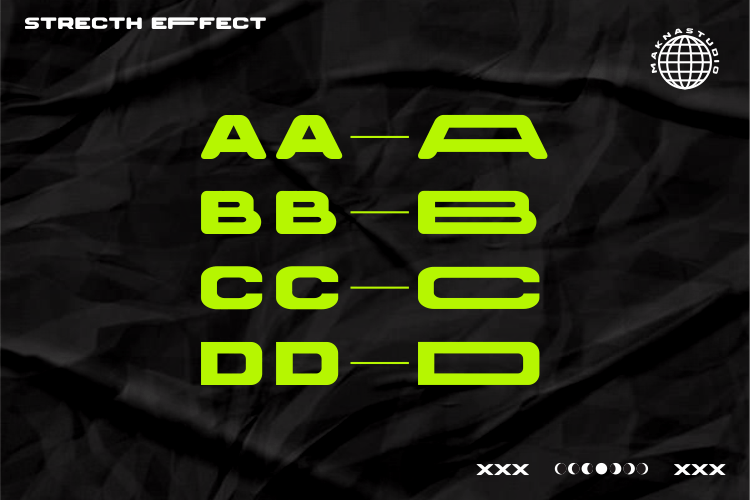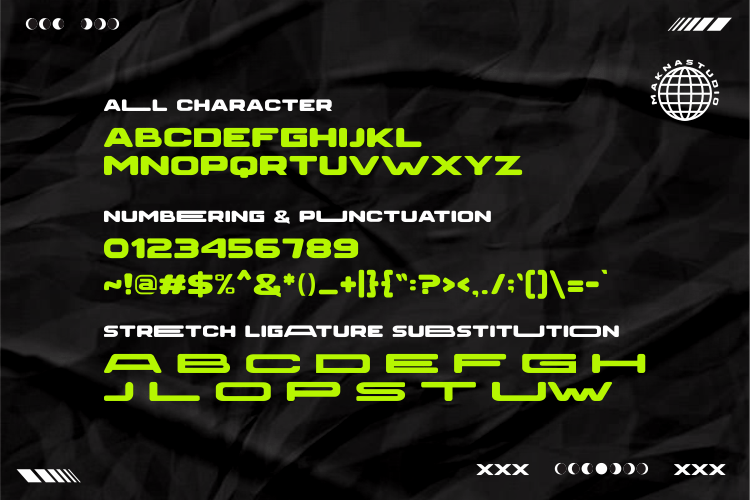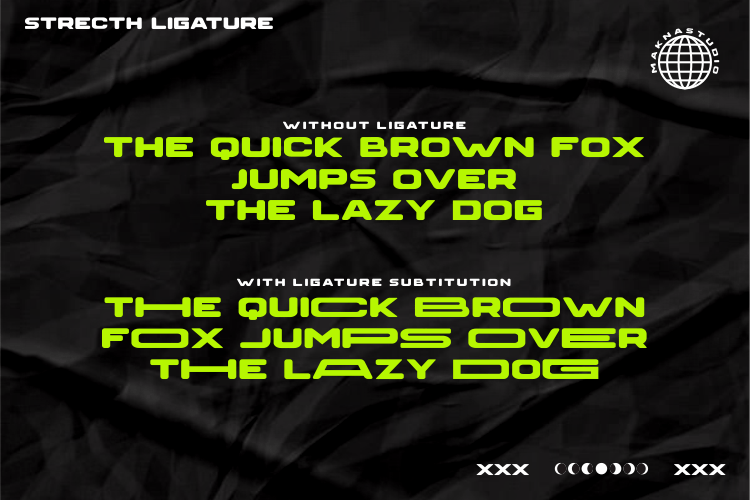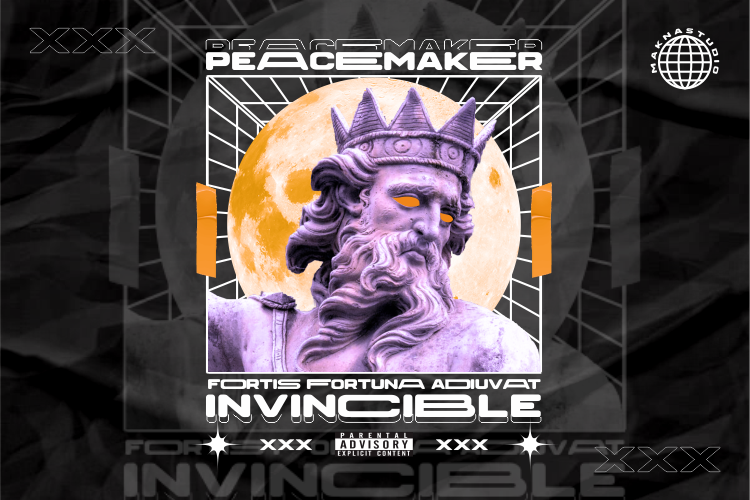
Switch Stretch Sans Serif Font
This is a modern bold sans typeface, with solid shape, strong and bold with good rounding. Will turn any creative idea into your true artwork! It’s perfect for logotypes, sign logo, fashion branding, apparel, posters, media campaign, headlines, book title, game, large format prints and more.